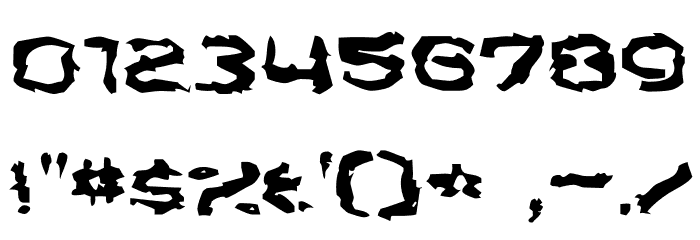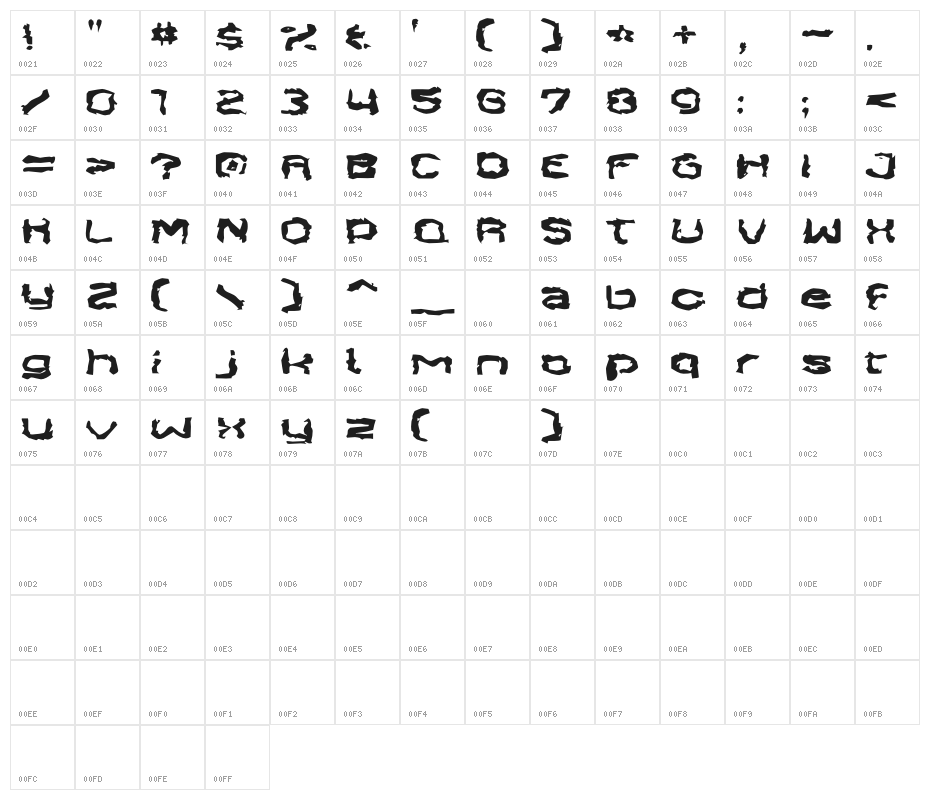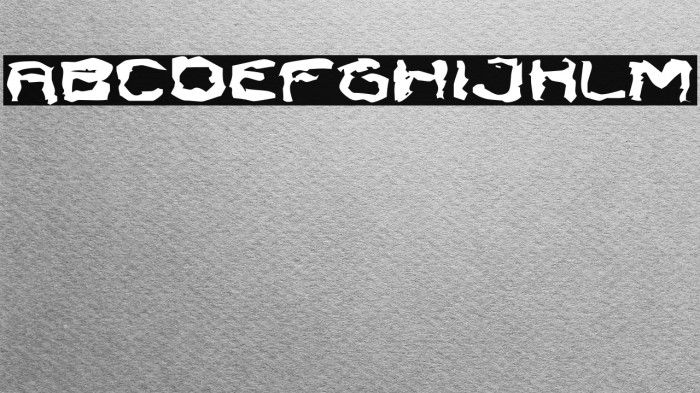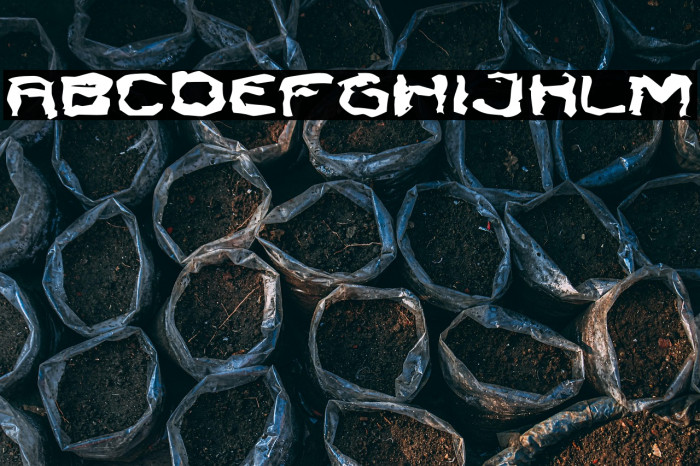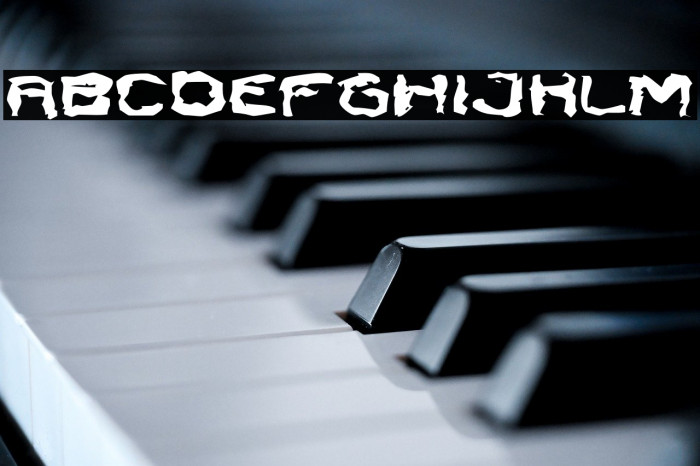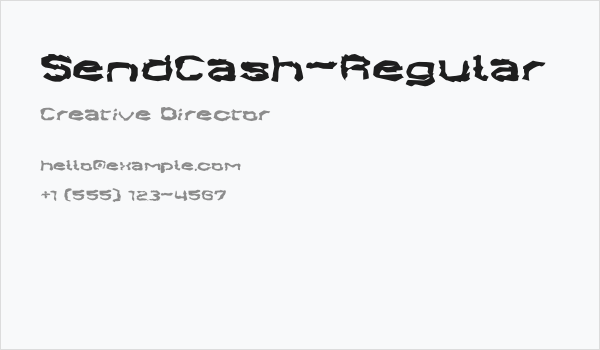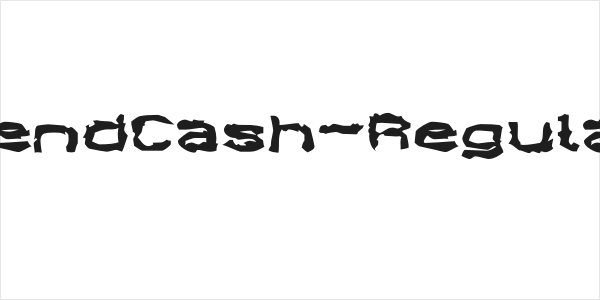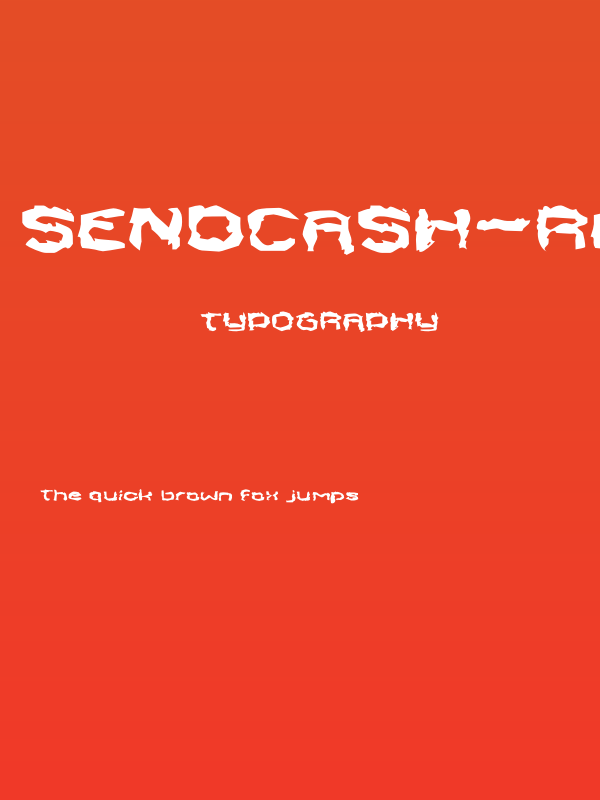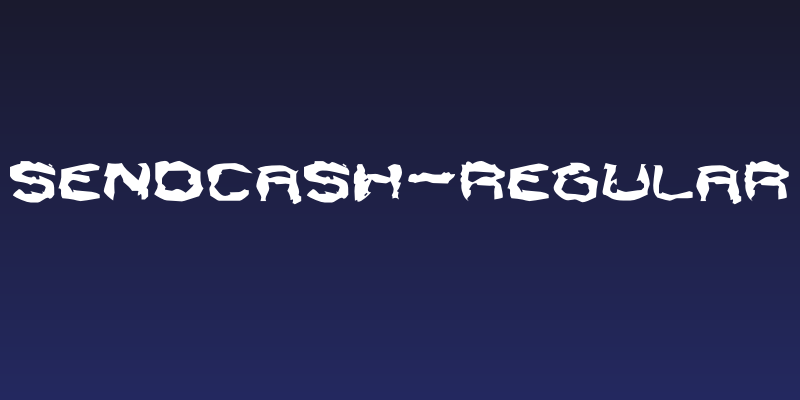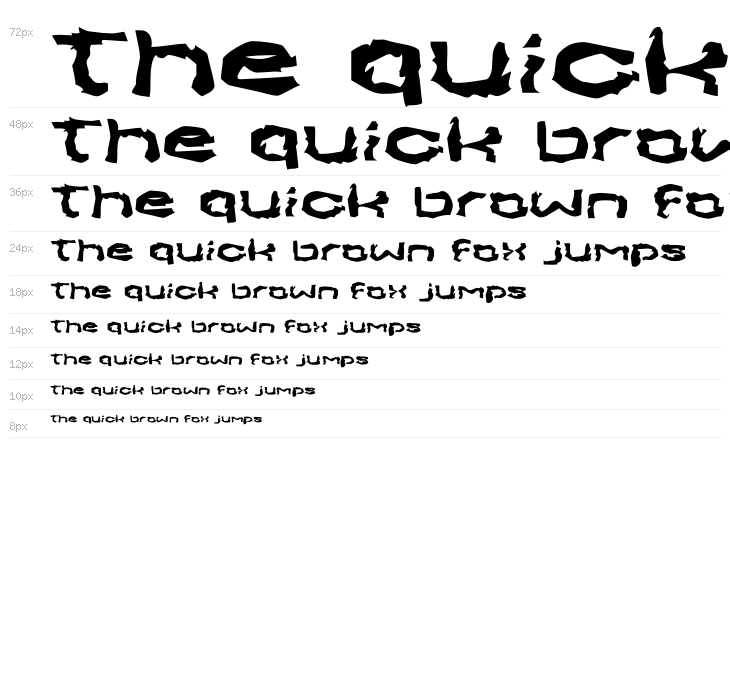
SendCash-Regular Font
This font features a rugged, distressed style with irregular edges and a bold, impactful presence. The characters appear as if they have been roughly painted or stamped, giving a raw and edgy aesthetic. Each letter maintains a consistent height, but the irregularities in the strokes create a dynamic and energetic feel. The font is highly decorative, making it suitable for attention-grabbing designs. The uppercase and lowercase letters share similar characteristics, with the lowercase being slightly more compact. Numbers and special characters follow the same distressed theme, ensuring a cohesive look across all text elements.
Proposed ProjectsIdeal for posters, album covers, streetwear branding, and any design needing a bold, rebellious touch.